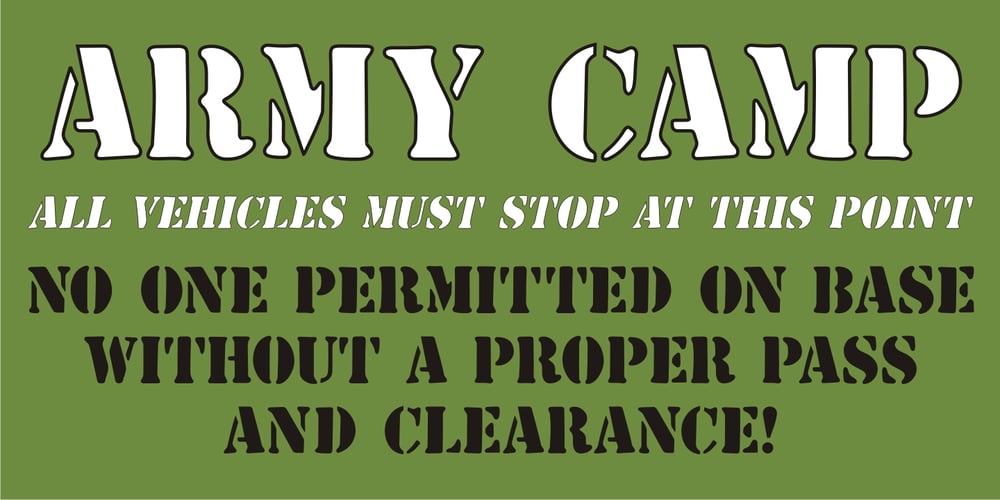
Common Stencil JNL Font Family was designed by Jeff Levine and published by Jeff Levine. Common Stencil JNL contains 2 styles and family package options. Common Stencil JNL takes a vintage lettering stencil from the 1980s with imperfectly bent cutting dies [which unintentionally gave the characters a distressed or “grunge” look] and recreates it in a digital form. The design is available in both regular and oblique versions.